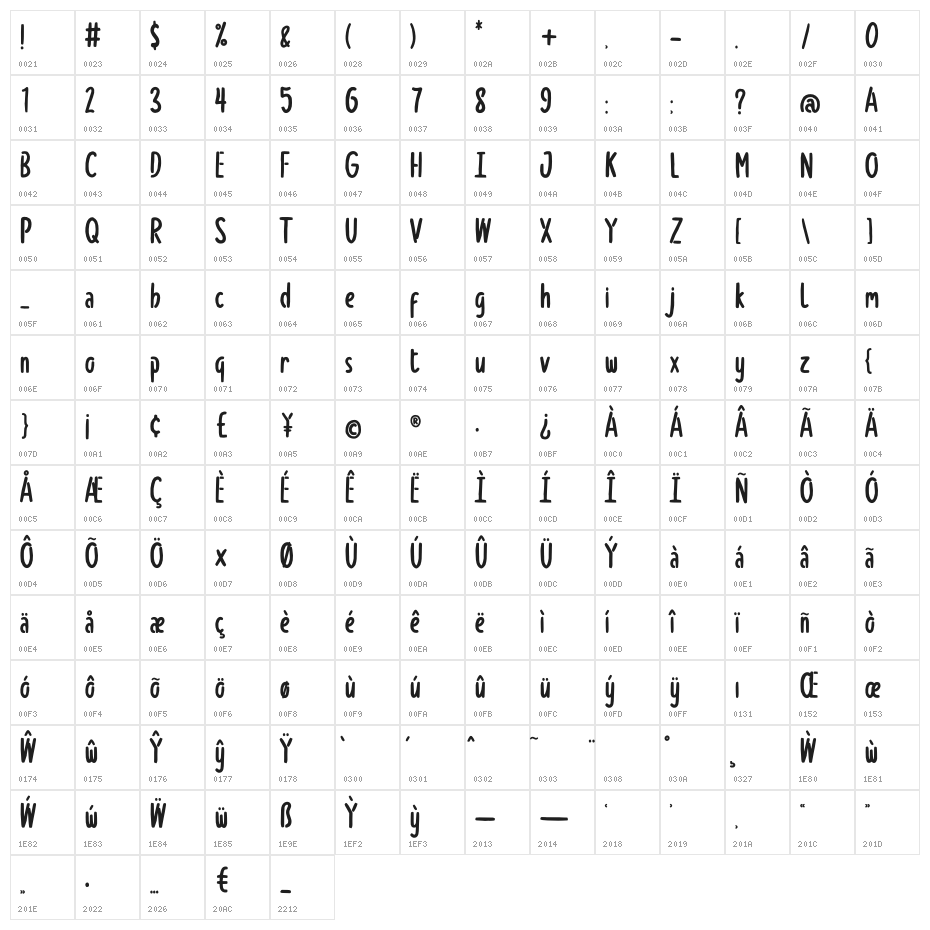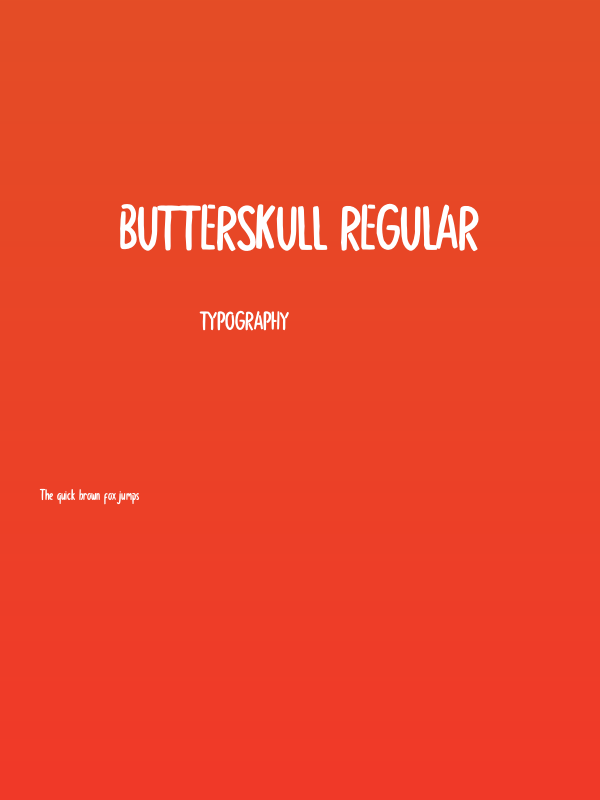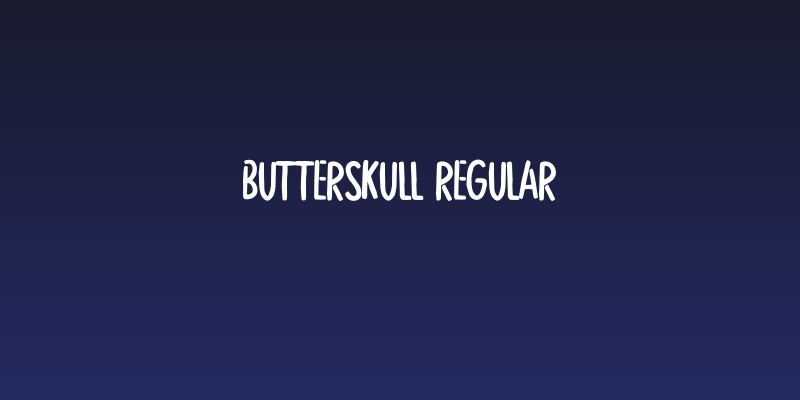
Butterskull Regular Font
Butterskull Regular Description
This font features a playful and bold design with rounded edges and a hand-drawn aesthetic. The uppercase and lowercase letters maintain a consistent style, with a slightly whimsical touch that adds character. The numbers and special characters are designed to match the overall playful theme, making them suitable for creative projects. The strokes are uniform in thickness, providing a cohesive look across all characters. This font is ideal for projects that require a fun and approachable feel, such as children's books, playful branding, or casual invitations.
| Overall Style | Playful, Casual |
| Proposed Projects | Children's books, playful branding, casual invitations, creative posters. |